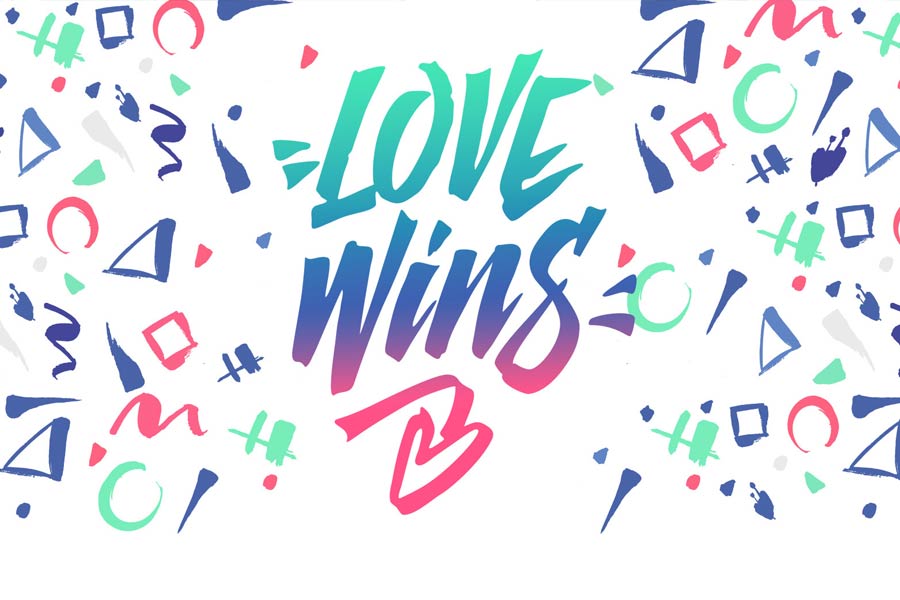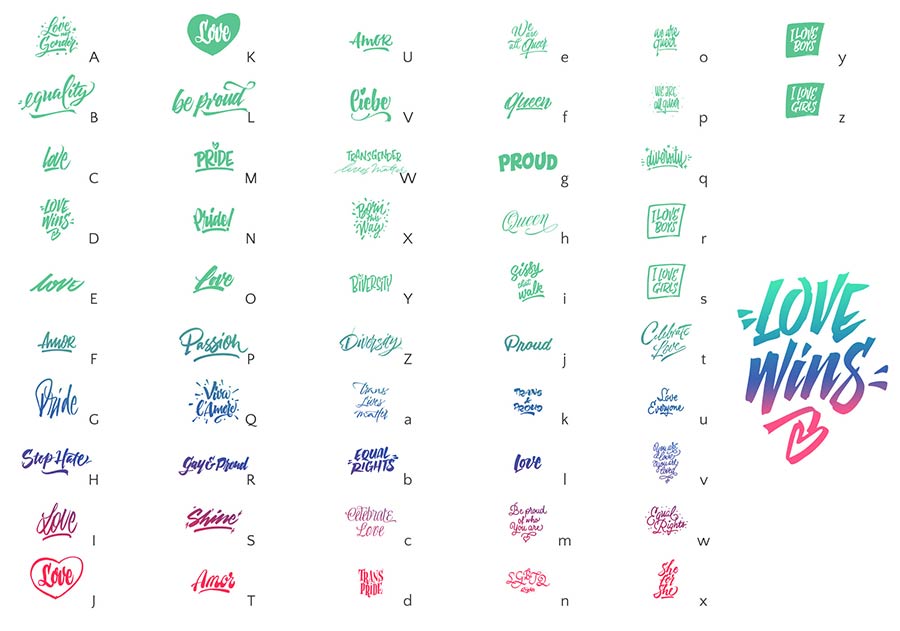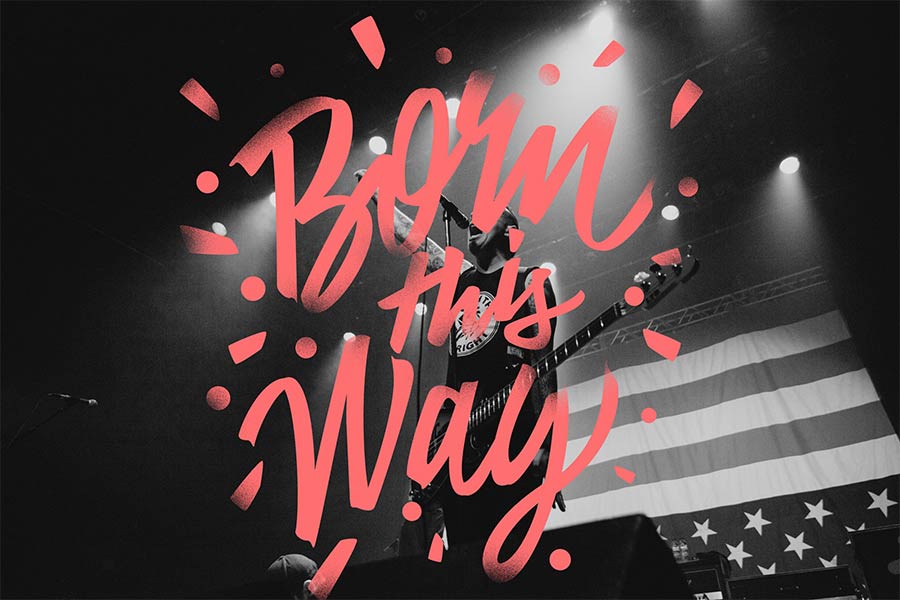
Love Wins is a free font that celebrates love, freedom and equal rights. This special font consists of 60 phrases, each uniquely crafted, containing positive messages on being different and pursue what you love, and also to raise more awareness about diversity.
These beautifully crafted messages can be used on t-shirts, banners, cards and more. This font is definitely perfect for spreading love and share with everyone.